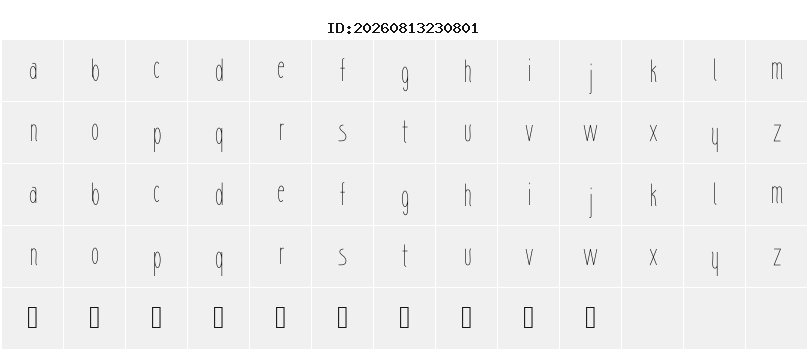
• Font Name: sharik
sharik.ttf is a modern, elegant sans-serif font designed for ultimate readability and visual harmony. Perfect for branding, headlines, web design, and print materials.